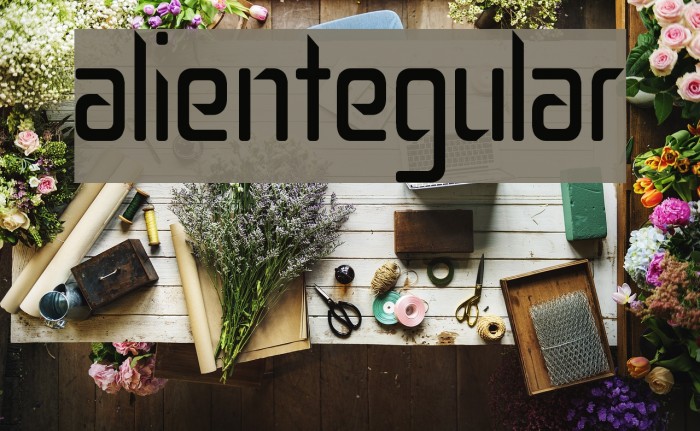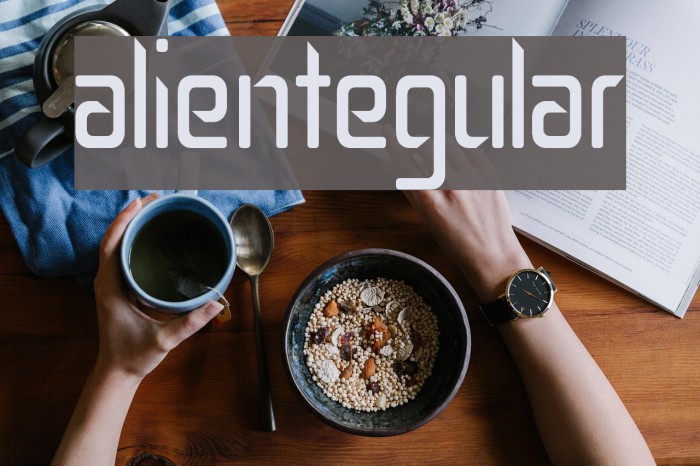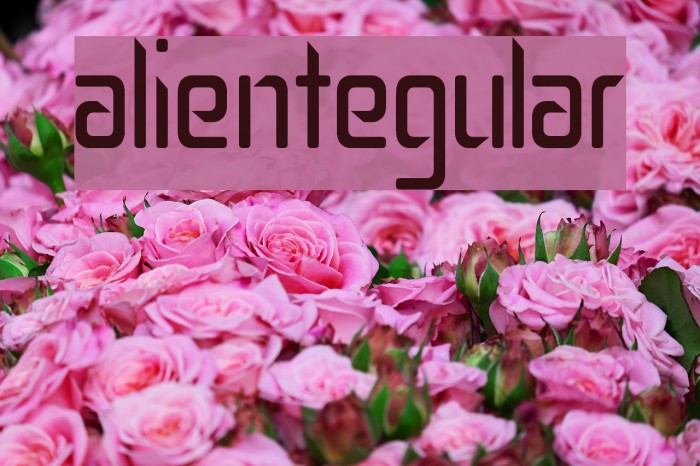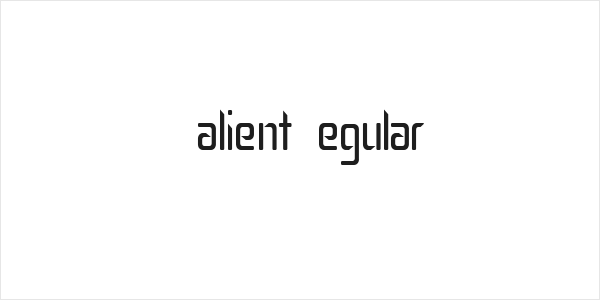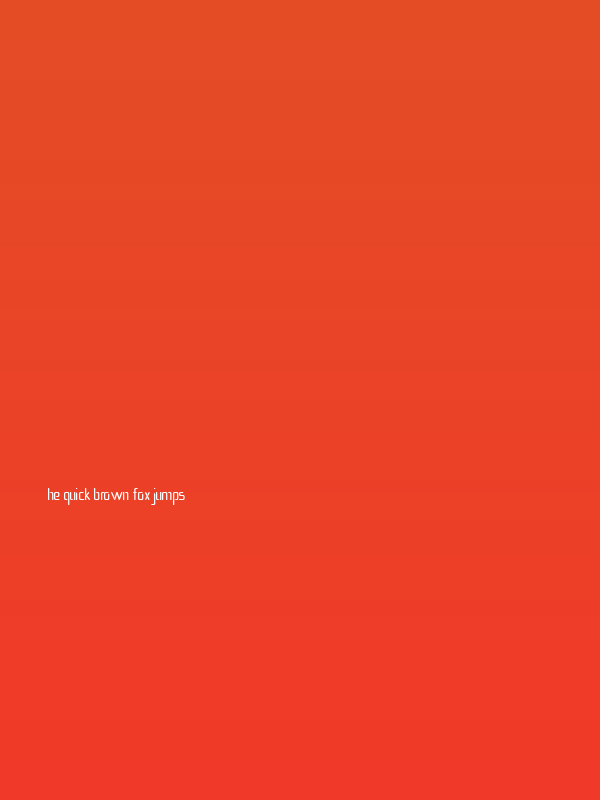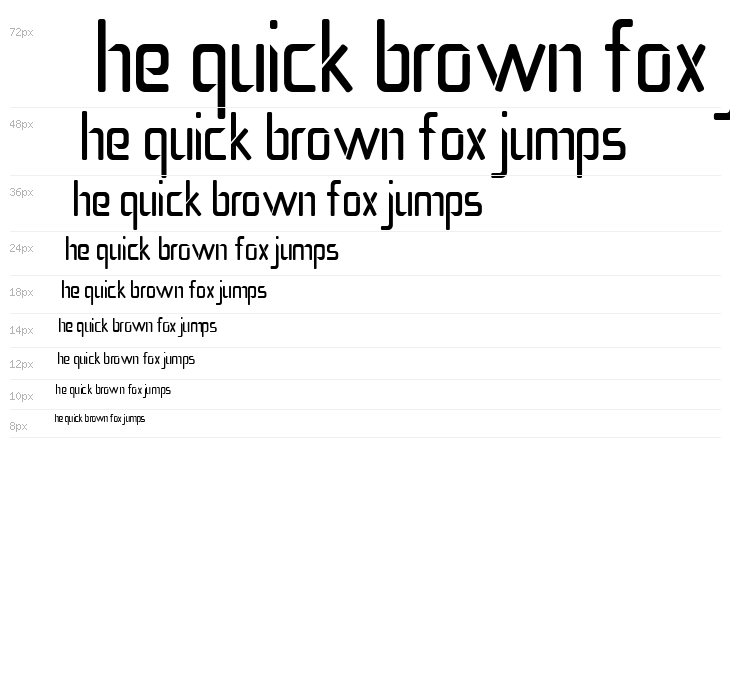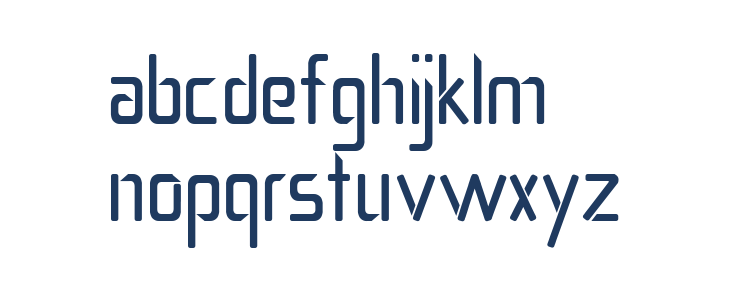
SalientRegular Font
SalientRegular Description
This font features a modern and sleek design with a geometric structure. The characters are uniform in width, giving it a monospaced appearance, yet they maintain a distinct individuality with rounded edges and a clean finish. The lowercase letters are particularly notable for their consistent height and smooth curves, which contribute to a harmonious and balanced look. The font's simplicity and clarity make it highly legible, even at smaller sizes. It is well-suited for digital interfaces and contemporary design projects, where clarity and precision are paramount.
| Proposed Projects | Ideal for digital interfaces, tech branding, and contemporary design projects. |